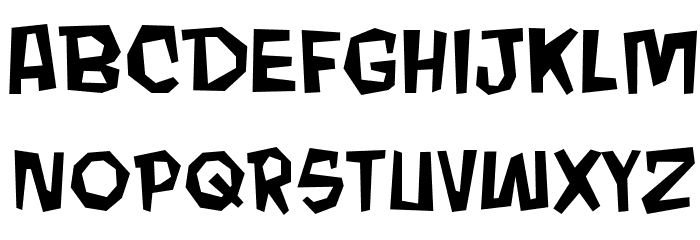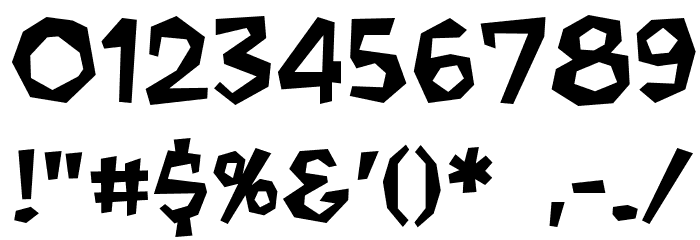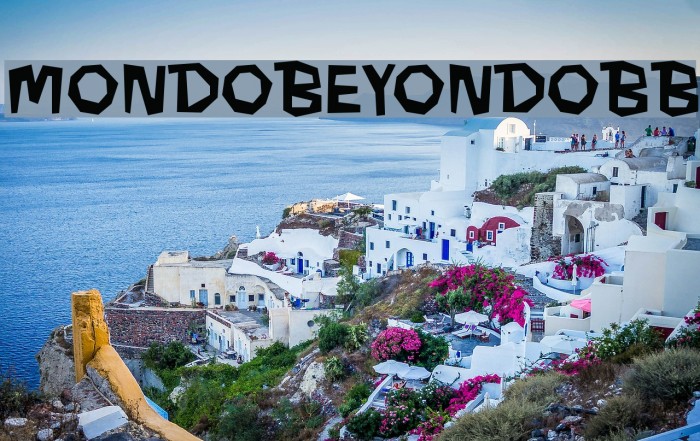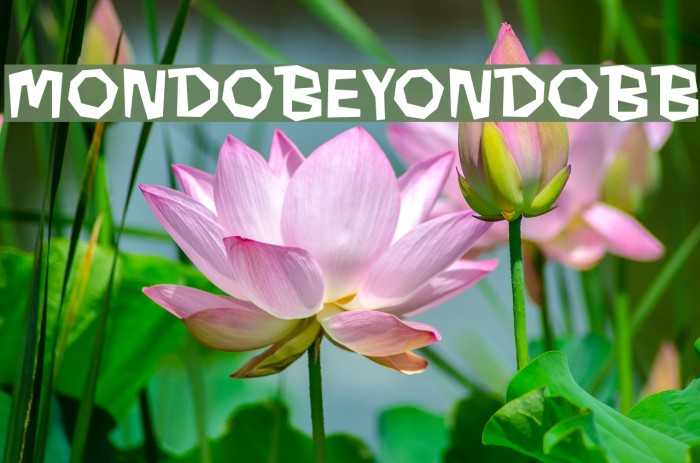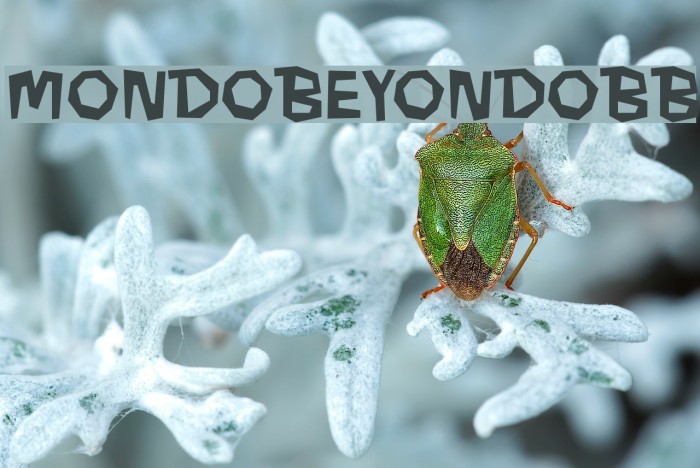
MondoBeyondoBB Font
This font features a bold and playful design with a distinctly irregular and angular style. Each character appears as if it has been hand-cut from paper, giving it a unique and dynamic appearance. The uppercase and lowercase letters maintain a consistent height, while the numbers and special characters follow the same quirky aesthetic. The font's boldness and irregularity make it stand out, providing a sense of energy and movement. The characters are tightly spaced, enhancing the compact and impactful look. This font is ideal for projects that require a fun and unconventional style, perfect for creative and artistic expressions.
A bold, playful font with irregular, angular characters and a hand-cut appearance.
- Proposed Projects: Ideal for posters, children's books, creative branding, and artistic projects.
- Character Spacing: Tight
- Overall Style: Playful, Creative